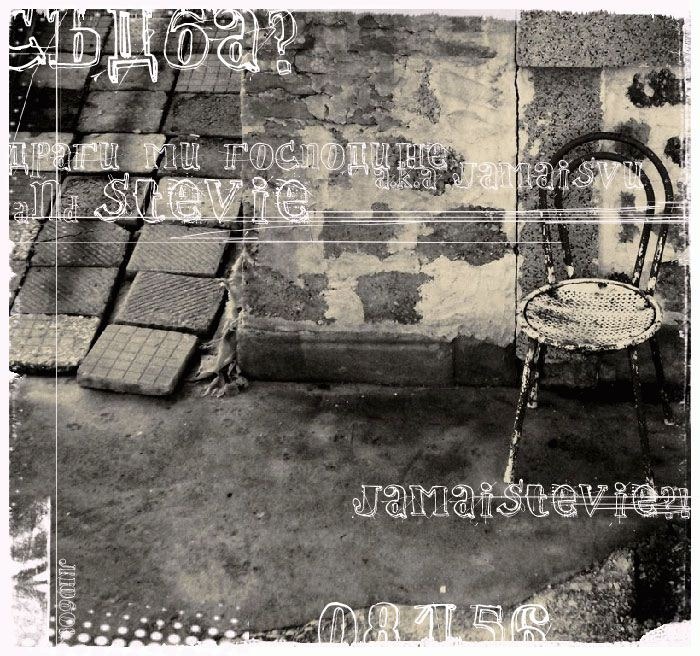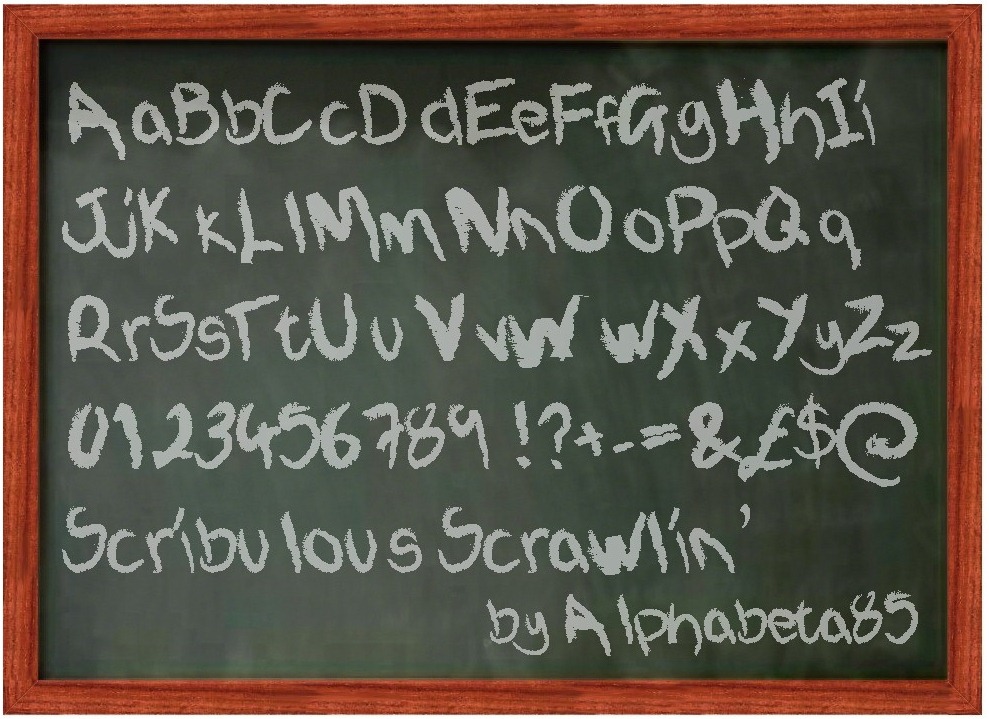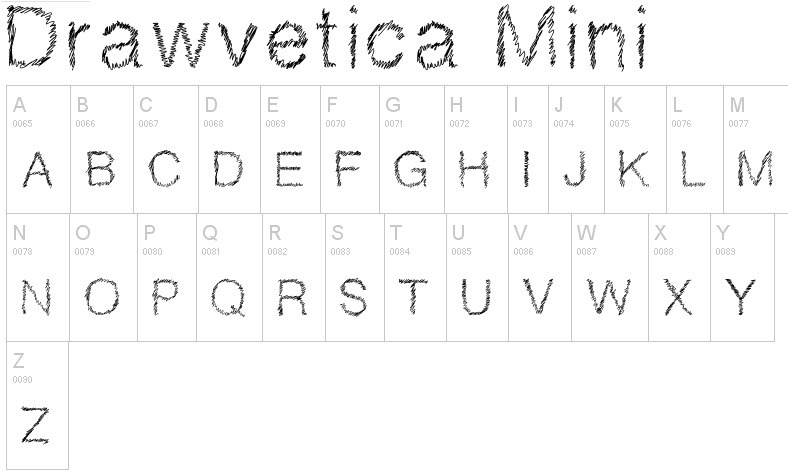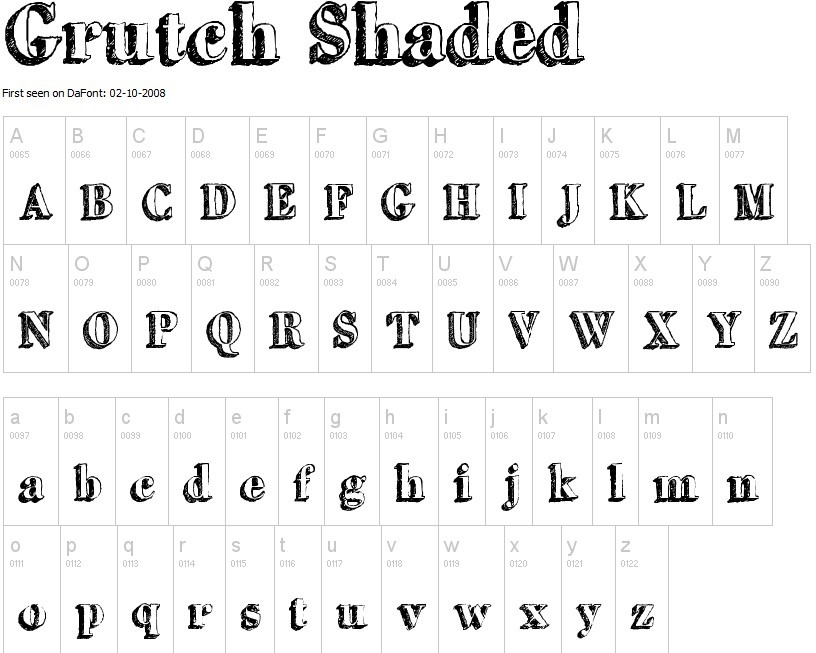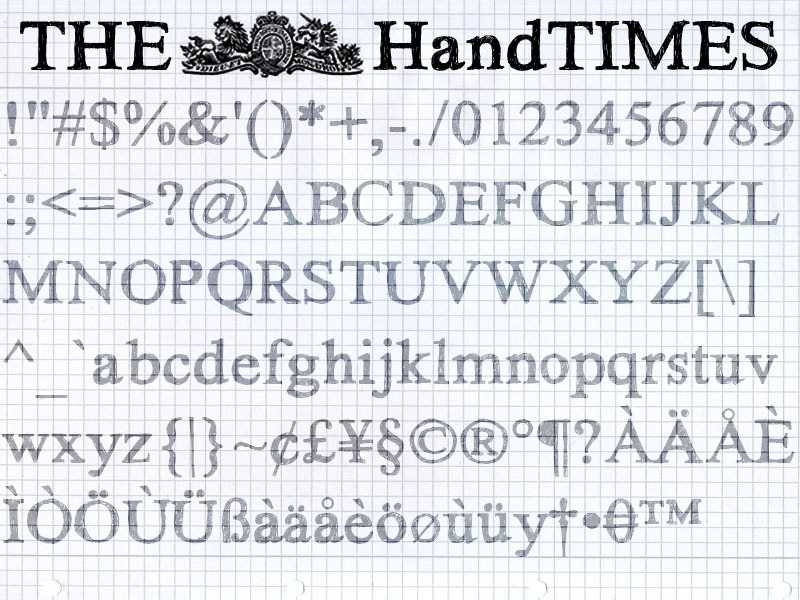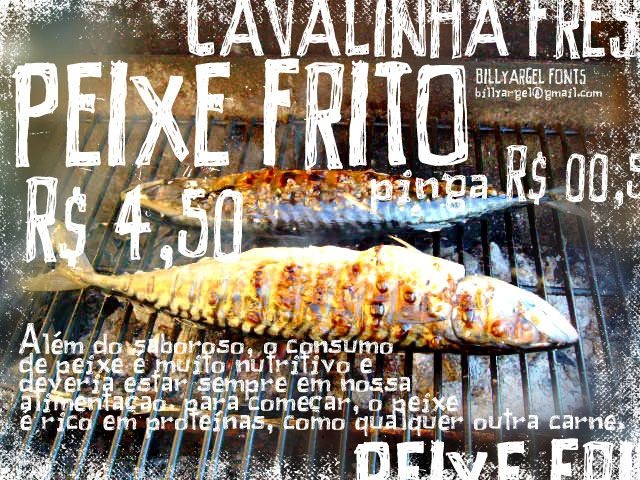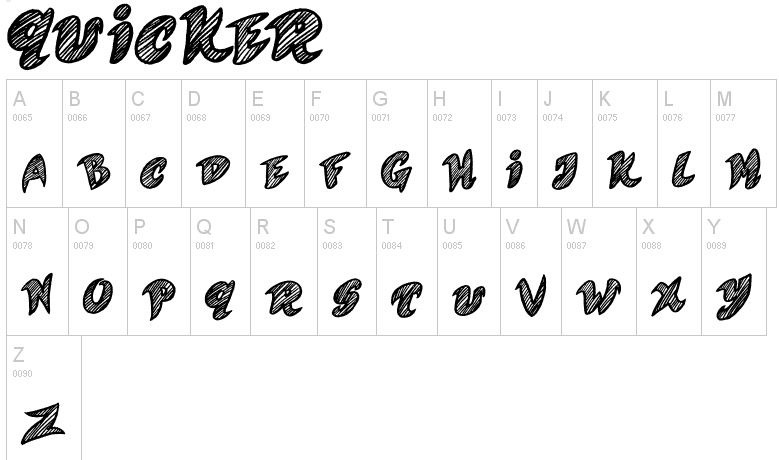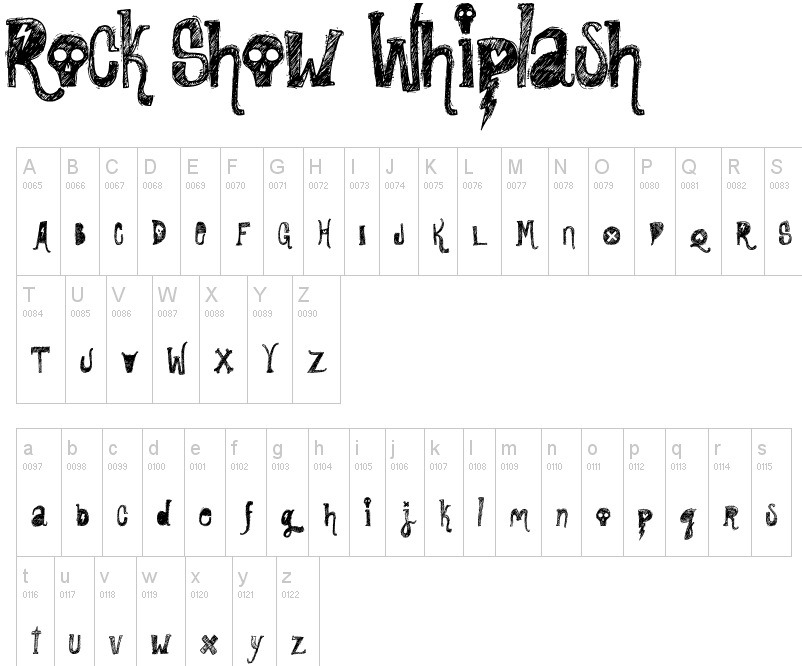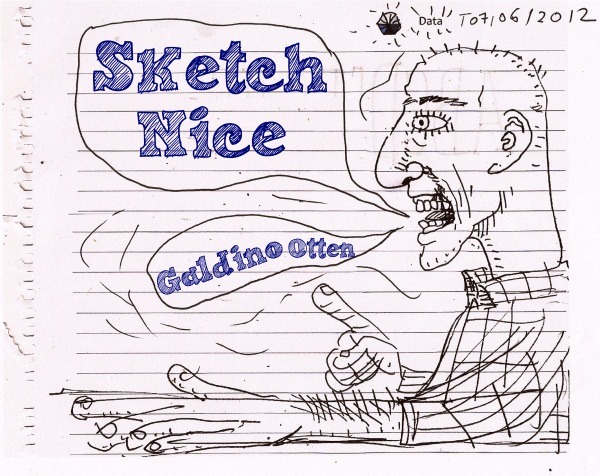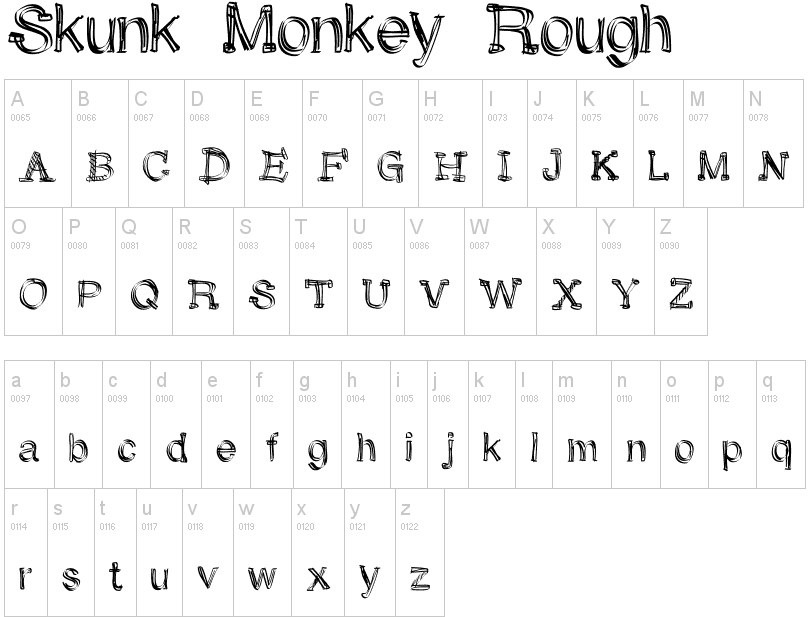
A really popular trend in design is to make designs look authentic, human made and non digital. As an example this is seen used in many websites where hand-drawn elements are central to the overall design. To support this design style we have also seen that many great hand drawn fonts have been created and many are provided for free download. These fonts are not designed as writing but rather as typography art where each letter have more lines and sometimes a fill. There are also tons of useful fonts available that deliver a hand-written look and feel. They are very similar to hand drawn fonts but tend to be just a single line looking as quick hand-writing.
Sketch Block
Peixe Frito
Special Type
Jamaistevie
HandVetica
Hand Times
Positiv-A
Tiza hand drawn Font
The Quiet Scream
Escuela Font
Sketch Nice
WC RoughTrad Bta
Tkachenko Sketch
FFF Tusj
Rock Show Whiplash
Scribulous Scrawlin’
Sketchy
Drawvetica Mini
Peach sundress
Skunk Monkey Rough
Marker Twins
Quicker
NOxWAY – Font
Broken
Cathzulu
Pirmokas
Deco Freehand
Grutch Shaded
Sketchbook
Bones Bummer